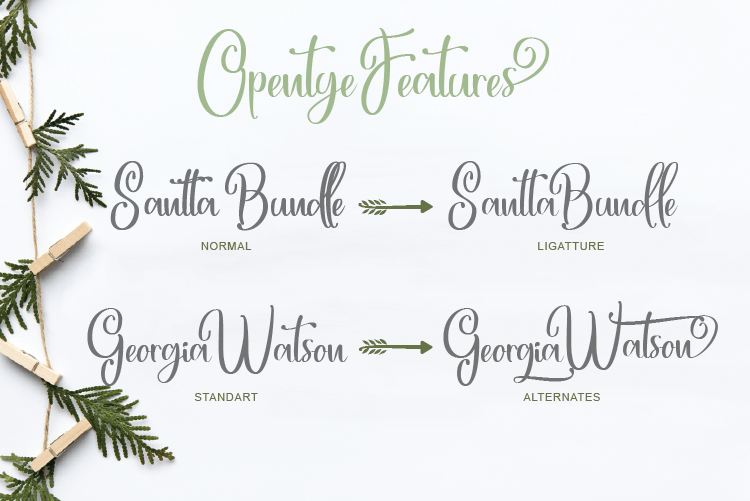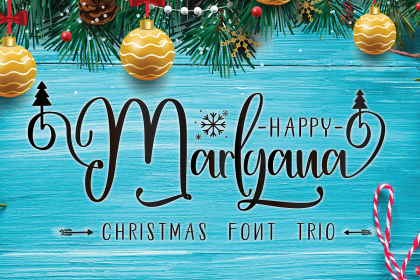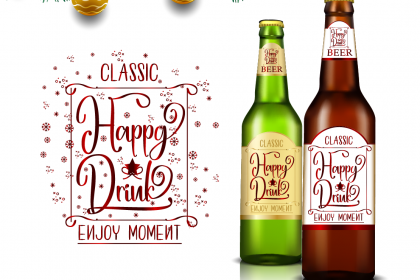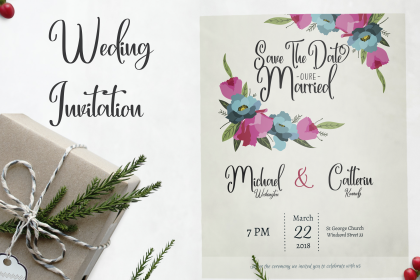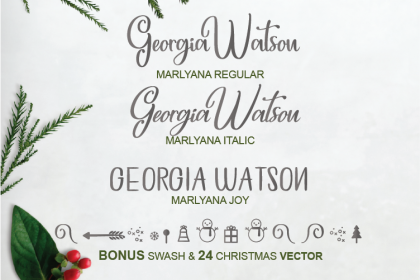
Happy Marlyana Font Trio
Happy Marlyana font trio
happily present oure new font product
”Happy Marlyana Font Trio” a new fresh handmade calligraphy font come with 3 style variation that really sweet together. Very suitable for greeting cards, branding materials, business cards, quotes, posters, and more!